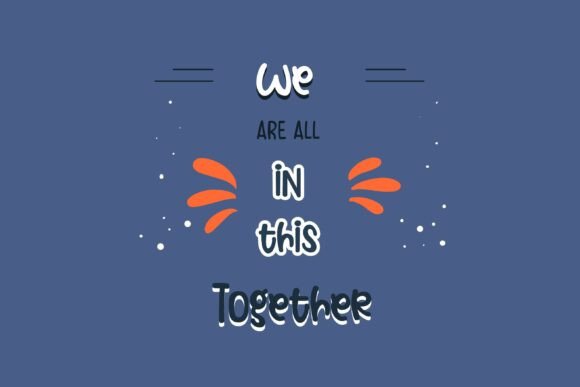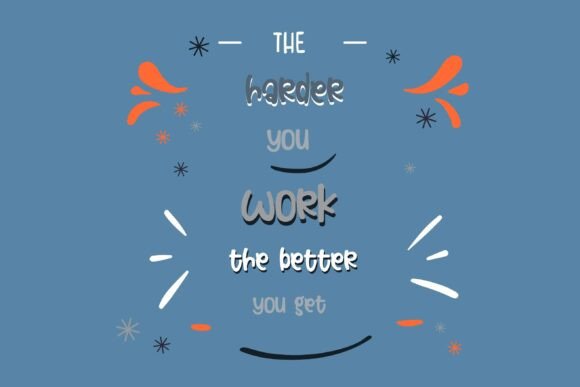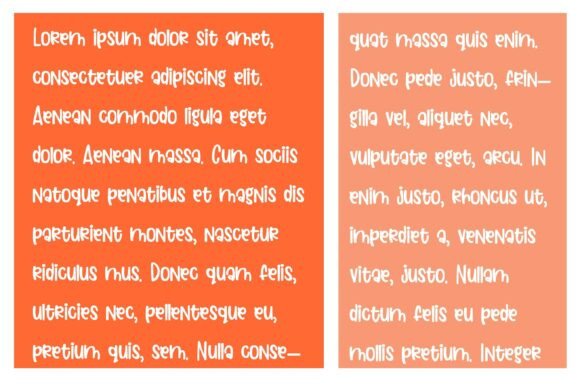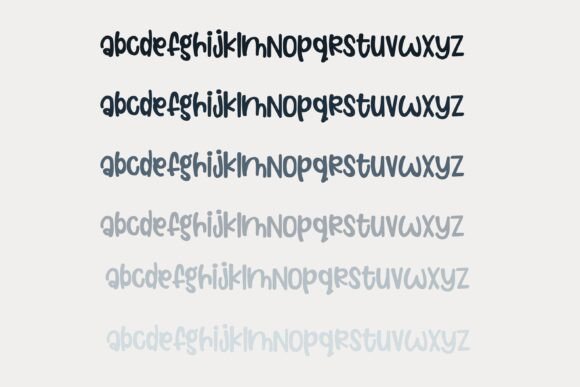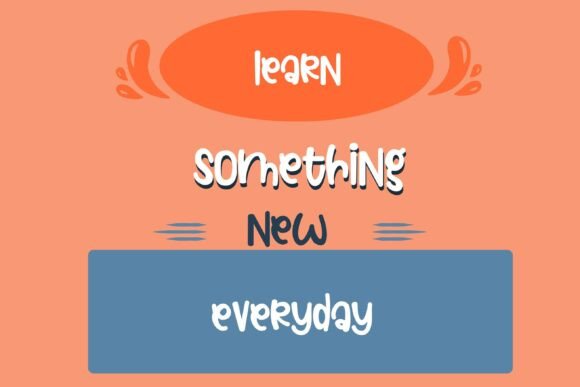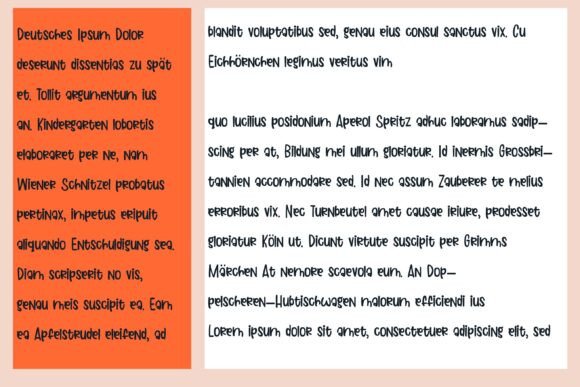
Dunkin Font: A Whimsical Sans Serif for Creative Projects
If you’re a designer or crafter looking for a unique and playful font to add a personal touch to your projects, look no further than the Dunkin Font. This hand-crafted font is a whimsical sans serif with a bit of a youthful feel, making it perfect for a variety of creative applications.
A hand-crafted font is a font that is designed to look like it was written by hand. It is often used for invitations, greeting cards, and other items where a personal touch is desired. Handwritten fonts can be either formal or informal, and they can be used for a variety of purposes, from digital marketing materials to print projects.
Characteristics of the Dunkin Font
The Dunkin Font is a sans serif font, which means it doesn’t have the small lines or flourishes at the ends of the letters. This gives it a clean and modern look that’s perfect for projects where you want to convey a sense of fun and playfulness. The font has a whimsical feel, with letters that are slightly irregular and imperfect, giving it a hand-crafted look.
Uses for the Dunkin Font
The Dunkin Font is a versatile font that can be used for a wide range of creative projects. Here are a few ideas to get you started:
- Invitations and greeting cards: The Dunkin Font is perfect for creating personalized invitations and greeting cards for special occasions like birthdays, weddings, and holidays.
- Digital marketing materials: The font’s playful and youthful feel makes it a great choice for digital marketing materials like social media graphics, email headers, and blog posts.
- Print projects: The Dunkin Font can be used for a variety of print projects, including brochures, flyers, and posters.
- Crafting and DIY projects: If you’re a crafter or DIY enthusiast, the Dunkin Font is a great choice for projects like handmade cards, gift tags, and other paper crafts.
Benefits of Using the Dunkin Font
There are many benefits to using the Dunkin Font in your creative projects. Here are a few:
- Unique and personalized look: The Dunkin Font has a unique and personalized look that will set your projects apart from others.
- Easy to read: The font is easy to read, even at small sizes, making it perfect for projects where you need to convey a lot of information.
- Versatile: The Dunkin Font can be used for a wide range of creative projects, from digital marketing materials to print projects.
- Fun and playful: The font’s playful and youthful feel makes it perfect for projects where you want to convey a sense of fun and playfulness.
Tips for Using the Dunkin Font
Here are a few tips for using the Dunkin Font in your creative projects:
- Use it sparingly: While the Dunkin Font is a beautiful font, it can be overwhelming if used too much. Use it sparingly to add a touch of personality to your projects.
- Pair it with other fonts: The Dunkin Font pairs well with other fonts, especially serif fonts. Experiment with different font combinations to find the one that works best for your project.
- Experiment with colors: The Dunkin Font looks great in a variety of colors. Experiment with different colors to find the one that works best for your project.
The Dunkin Font is a unique and versatile font that’s perfect for creative projects where you want to add a personal touch. Its whimsical sans serif design makes it perfect for a wide range of applications, from digital marketing materials to print projects. With its easy-to-read design and playful feel, the Dunkin Font is a great choice for designers and crafters looking to add a touch of personality to their projects.